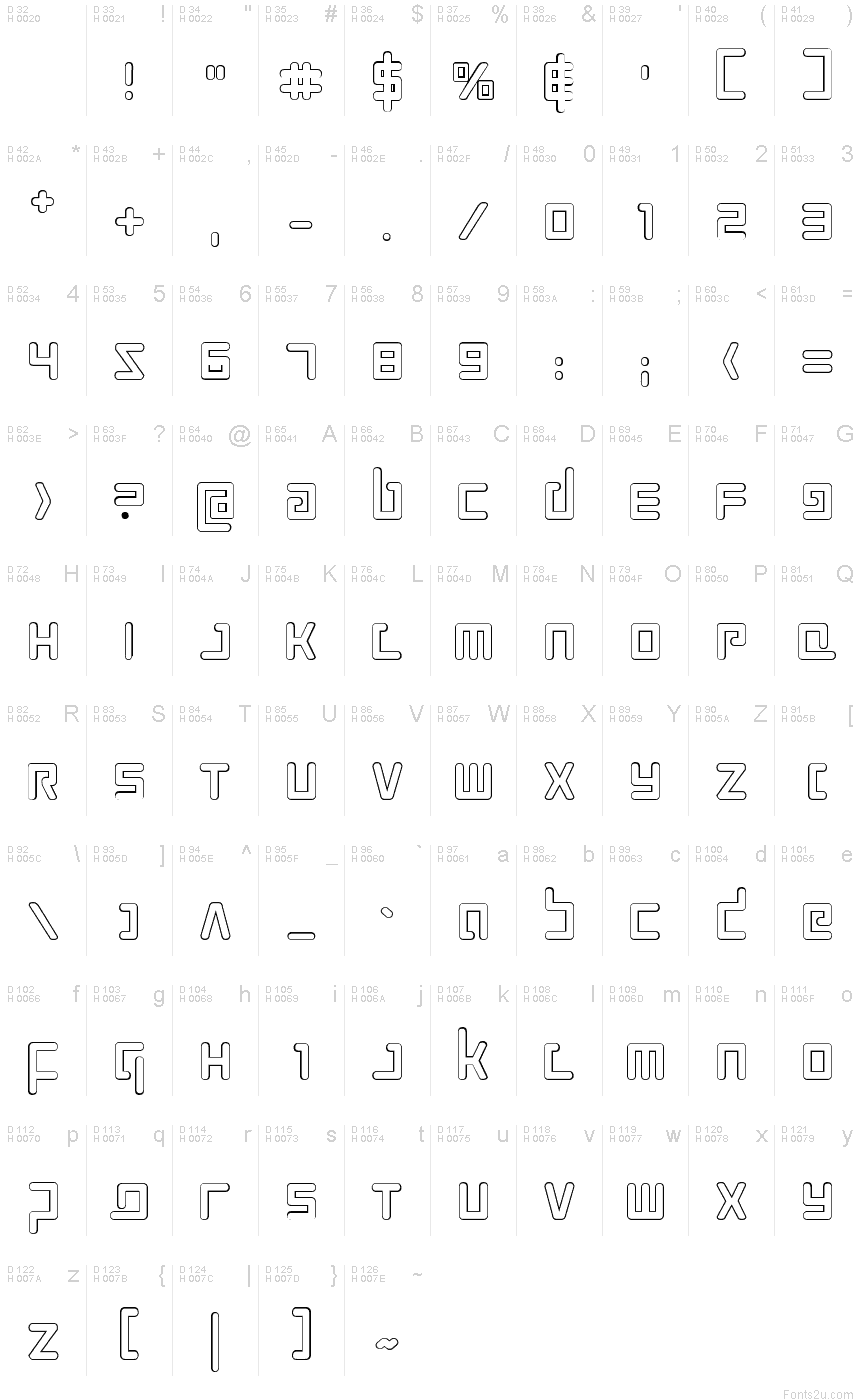
Prokofiev Outline from Iconian Fonts is a free futuristic outline display font built from broad, rounded geometric forms. Its open strokes, squared inner spaces, and clipped joins make the letters resemble streamlined industrial signage.
It can turn lettering into a schematic emblem rather than ordinary text. That role suits science-fiction game graphics, electronic music packaging, and technology event posters, where the hollow construction can echo circuit paths or machine panels. In magazine design, it is especially apt for feature headings about transport, engineering, or imagined futures.